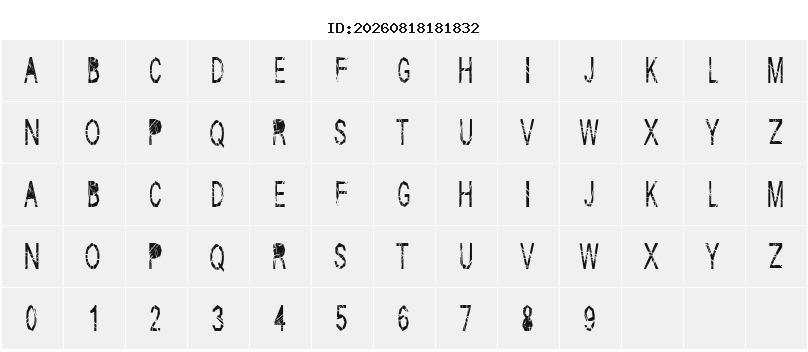
• Font Name: Skratch
• Full Font Name: Skratch
• Manufacturer: David Kerkhoff
About Skratch.ttf
Skratch.ttf is a modern, elegant sans-serif font designed for ultimate readability and visual harmony. Perfect for branding, headlines, web design, and print materials.